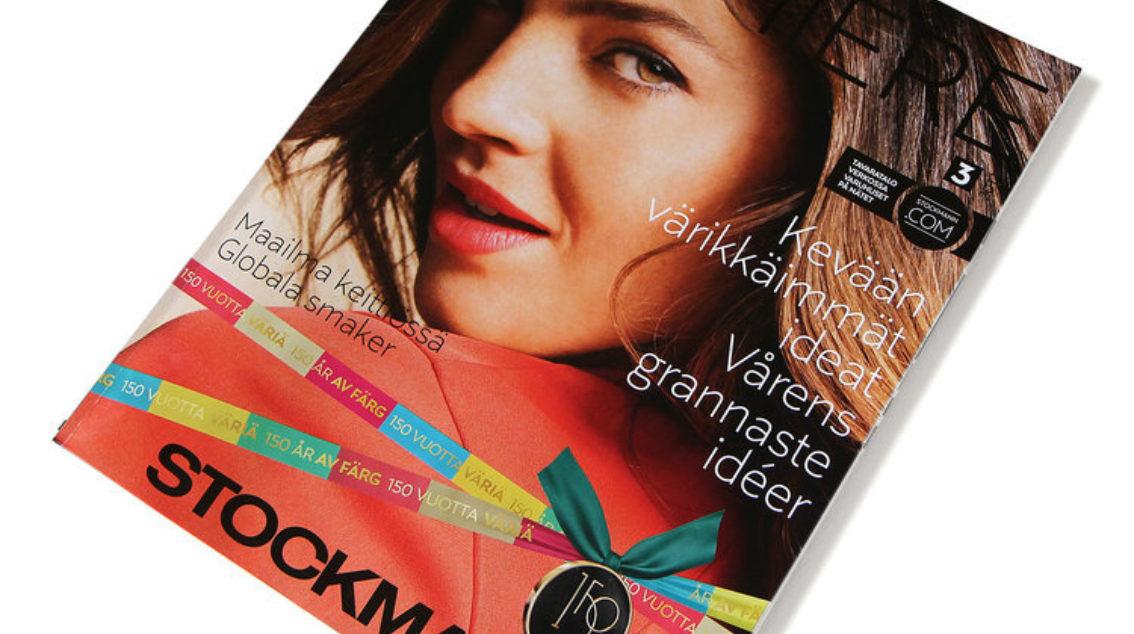
Founded in 1862 by Georg Franz Stockmann, the Stockmann department store has grown to a commanding position in Finland, Estonia, and Latvia, serving tens of millions each year in eight company-owned locations.
To celebrate and commemorate its 150-year anniversary in 2012, Stockmann approached creative agency Kokoro & Moi to refine and unify their visuals, leading to new packaging, graphics, and a custom typeface by foundry partner Underware. Ten years later, we’re looking back at what made Stockmann Sans so enduring.
To understand the typeface, it helps to examine the design system in which it lives. Successful in blending in with the traditional brand of the stores while adding a contemporary voice, Kokoro & Moi’s system was nominated for a Design of the Year 2012 award by Design Museum London and won gold at the Best of the Year 2011 show in Finland.
The approach started with Stockmann’s highly-identifiable ‘S’ mark and incorporated decades of inspiration from Stockmann’s corporate archives, especially those pieces dating back to the first half of the 20th century.
Scandinavian patterns and bold colors, including Stockmann’s own British Racing Green color, were integral to the aesthetic. Underware’s charge—to unify the retailer’s communications across not only media but also borders—relied, too, on Stockmann’s existing DNA.
Zealotry wouldn’t be an inappropriate collective noun for Underware. They not only design typefaces, they live type—and they want others to do the same.
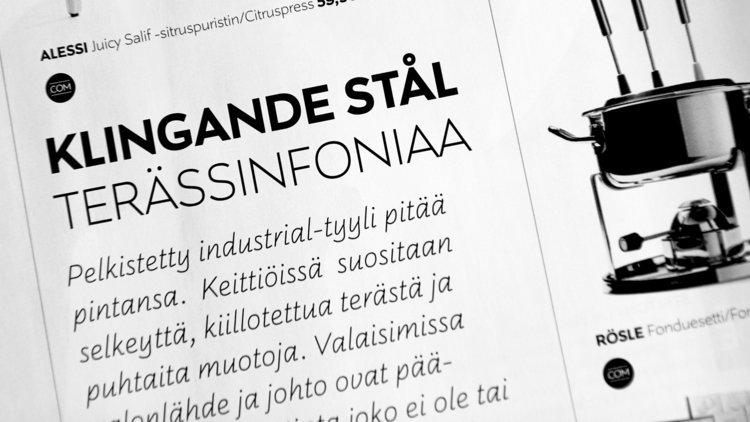
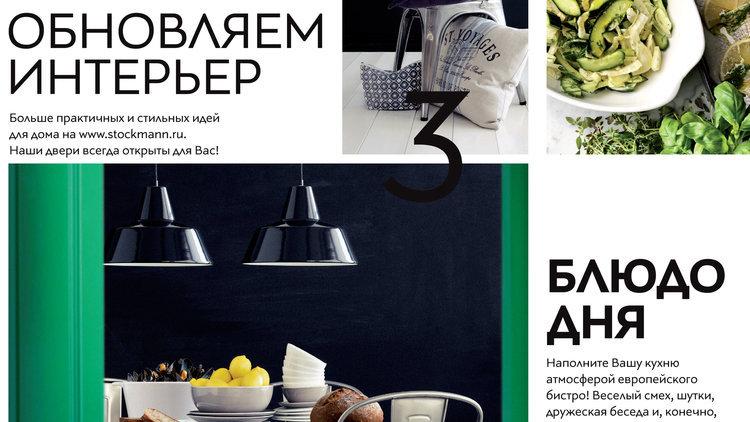
The sans serif typeface includes eight styles across three weights, with the inclusion of Italics and tabular Roman figures for the regular and light weights. Across all styles, Underware sought to add “a little touch of glamour and jolly luxury,” something reflected in its angled stroke terminations and peculiarly flowing ‘g’.
While Stockmann Sans does the bulk of the brand’s typographic heavy lifting, it isn’t asked to do everything. The brand guidelines explain that as the primary typeface, it should be used “for all body texts in brand-related material,” yet a secondary face is used to set the headlines. This allows Stockmann Sans to support the brand without appearing stale and too familiar over time, a phenomenon which can happen to branded display faces.
Underware was able to create a robust Nordic design with plenty of OpenType features and support for more than 40 languages using the Latin and Cyrillic alphabets. The capitals were designed to function both in sentence initials (in the typical manner) and in all-caps text, frequently used in catalogs and in-store signage.
“Because the custom type family is applied in all marketing materials and in all department stores throughout Finland, the Baltic countries, and Russia, Stockmann Sans is seriously being put to work. From window letterings to magazines, from carpets to signages and price labels, across their websites and mobile shops.” — Underware
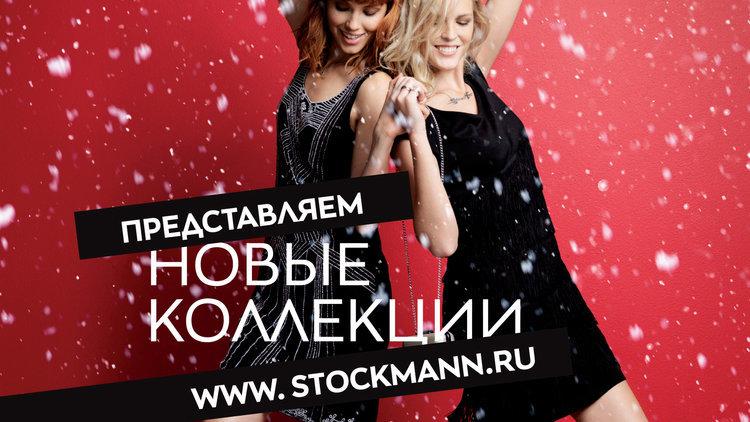
The result is a typeface which has been read and trusted by nearly everyone in Scandinavia for a decade. Stockmann’s decision to commission and use a custom typeface protects its brand, honors its 160-year history, and prepares for 160 years more.